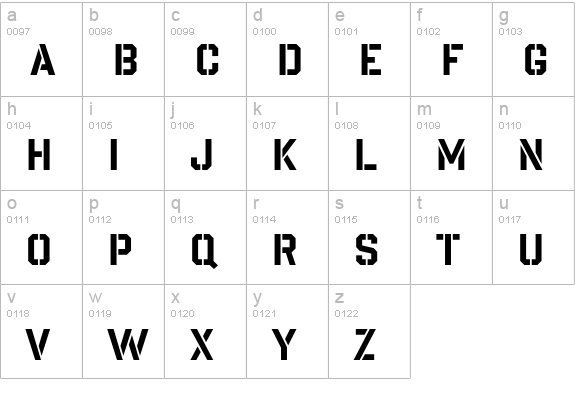
Introducing the magnificent Giant Background font, a stunning typeface that commands attention with its bold and striking appearance. This versatile font is perfect for creating eye-catching designs, posters, banners, and more. With its unique style and larger-than-life presence, Giant Background font is sure to make a statement in any project. And the best part? It's completely free! You can download the Giant Background font for free at FontsMarket.com. Embrace the power and presence of this remarkable font and unleash your creativity with ease. Make a big impact with the Giant Background font today!